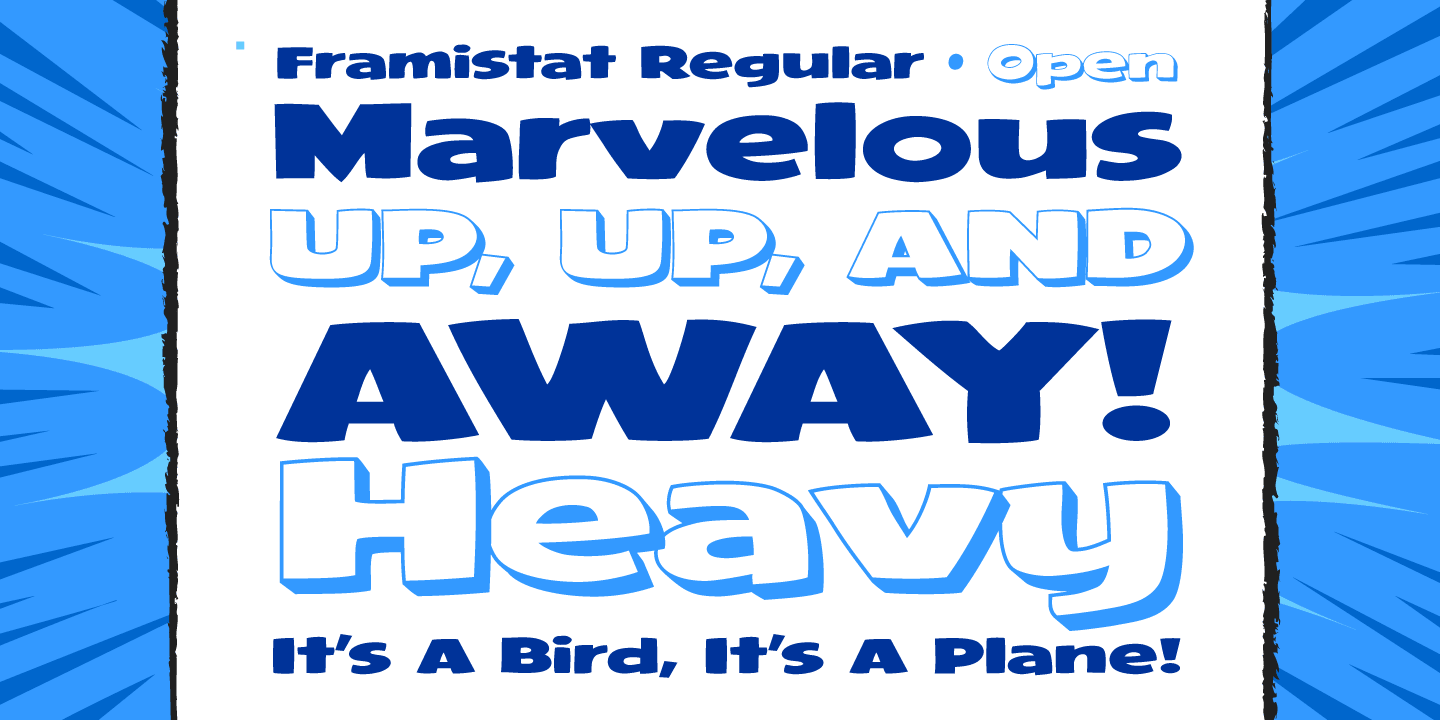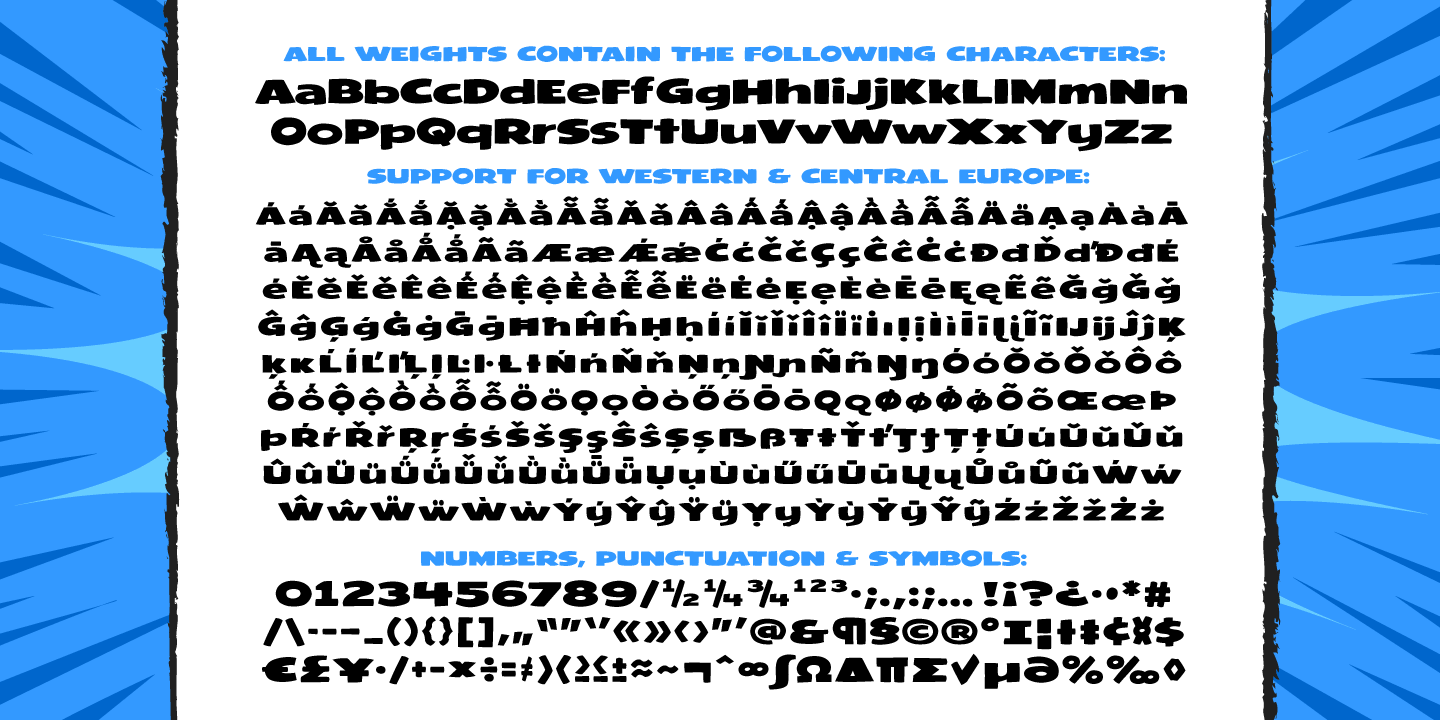
Framistat
Font Family by Comicraft Fonts
Face Front, True Believers, here comes another Spectacular Smash Hit from the Comicraft House of Ideas! A worthy companion to our Monster Mash and Doohickey Masterworks, Framistat is an All-New, Truly Titanic Typeface designed to dutifully display cover copy as demanded by Collector's Item Classic comic book tradition.